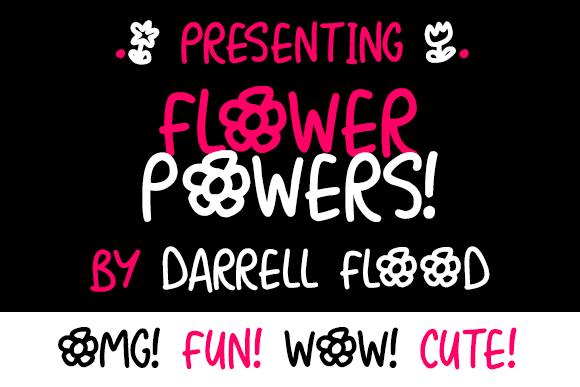
Flower Powers Font
Flower Powers is a lighthearted, flowery font in a loose marker style. This handwritten font is perfect for garden and plant themes!